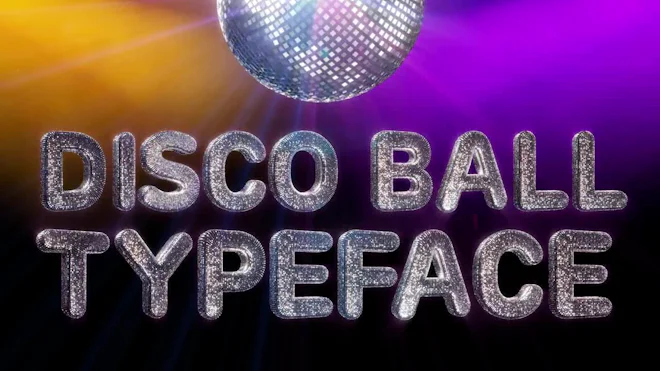
This stock motion graphics video pack includes 52 different clips of disco ball letters, numbers, and symbols on a transparent alpha channel in a seamless loop.